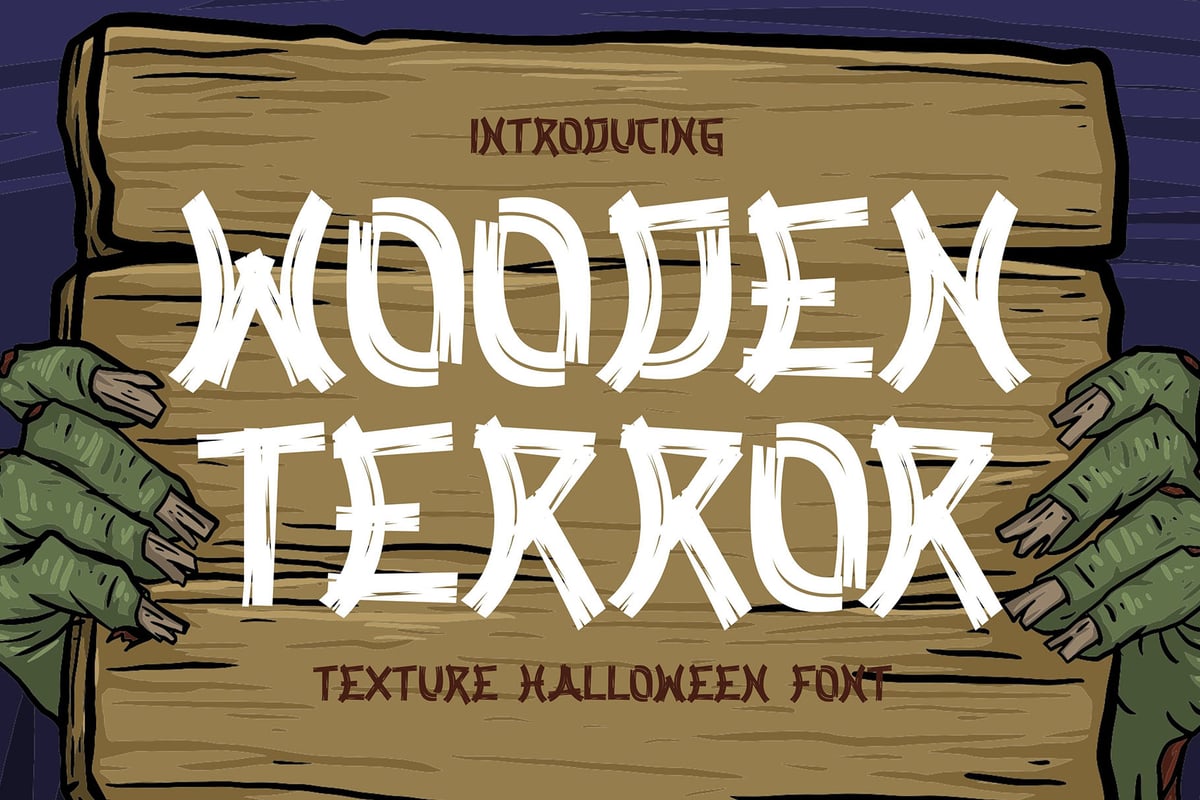
Wooden Terror
Wooden Terror is a spine-chilling Halloween-themed textured font that adds eerie vibes to your spooky projects. The rough, wood-carved texture creates a haunted, rustic feel, perfect for Halloween flyers, posters, and party invites.